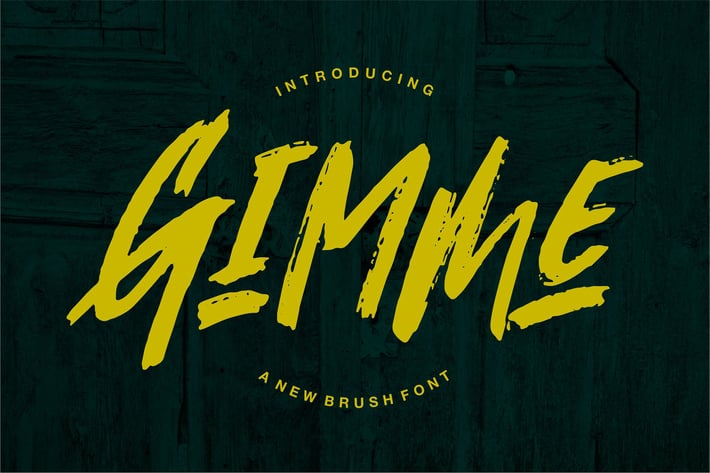
Gimmi | A New Brush Font
Gimmi | A New Brush Font with a calligraphy style, So beautiful on invitation like greeting cards, branding materials, business cards, quotes, posters, and more!